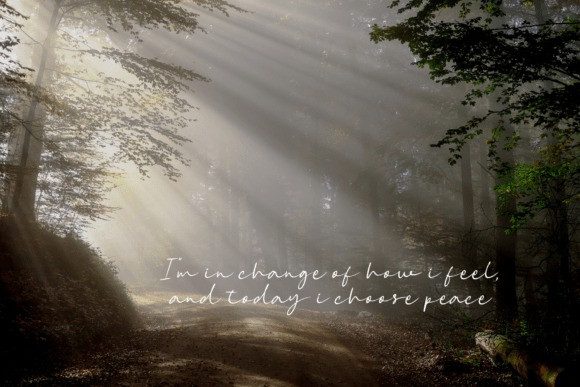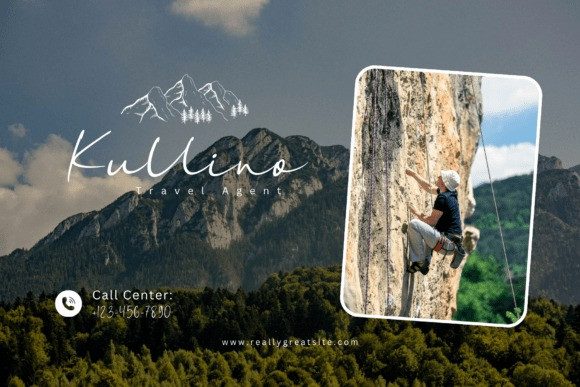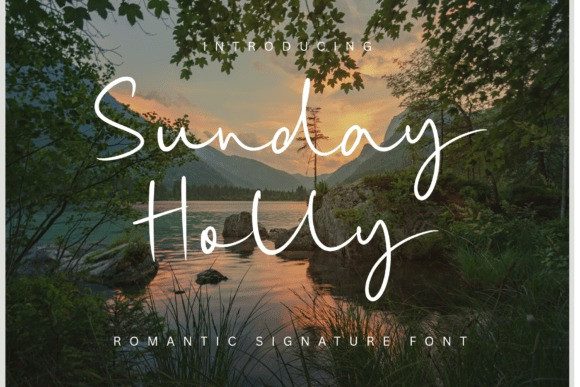
Sunday Holly Script Font
Sunday Holly Script Font a captivating signature font that embodies the allure of elegant penmanship. This font paints with delicate sweeps and innate rhythm, infusing every design with a sense of warmth and authenticity. It’s optimal for enhancing branding aesthetics, crafting logos that are unforgettable, creating invitations, heartfelt greeting cards, thought-provoking quotes and engaging social media projects. With a dash of sophistication and a splash of holiday cheer, Sunday Holly makes an exceptional choice during Christmas season and adds a snug winter touch. Harness the beauty of Sunday Holly and let your designs tell a story.